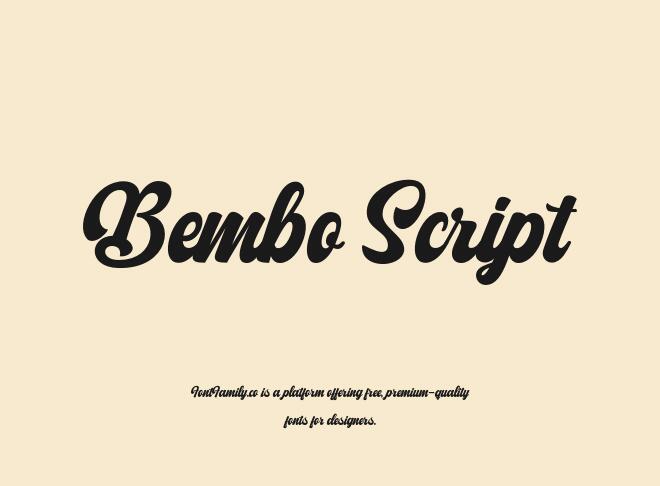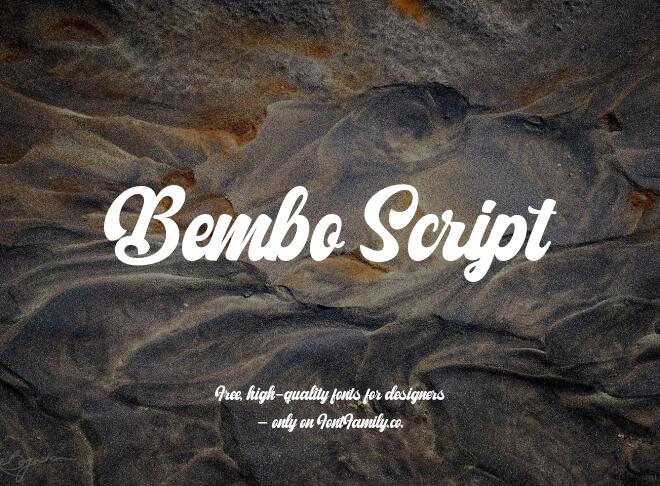
Bembo Script Font
Bembo Script Font is a classic, elegant typeface originally designed by the Monotype Corporation in 1929. This font showcases a sophisticated script style that draws inspiration from the Renaissance period. Perfect for adding a touch of elegance and refinement to any design, Bembo Script Font is especially suited for book covers, wedding invitations, and high-end branding. Its delicate curves and well-balanced letterforms make it a timeless choice for designers. Compared to other fonts, Bembo Script Font offers a unique blend of classic charm and readability. Its versatility makes it a go-to choice for both print and digital media. Choosing Bembo Script Font will undoubtedly add a high-level of sophistication to your design project.
Author | Monotype Corporation |